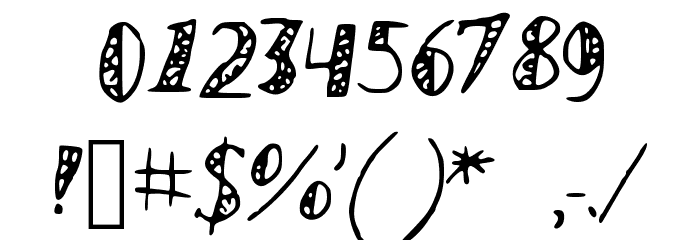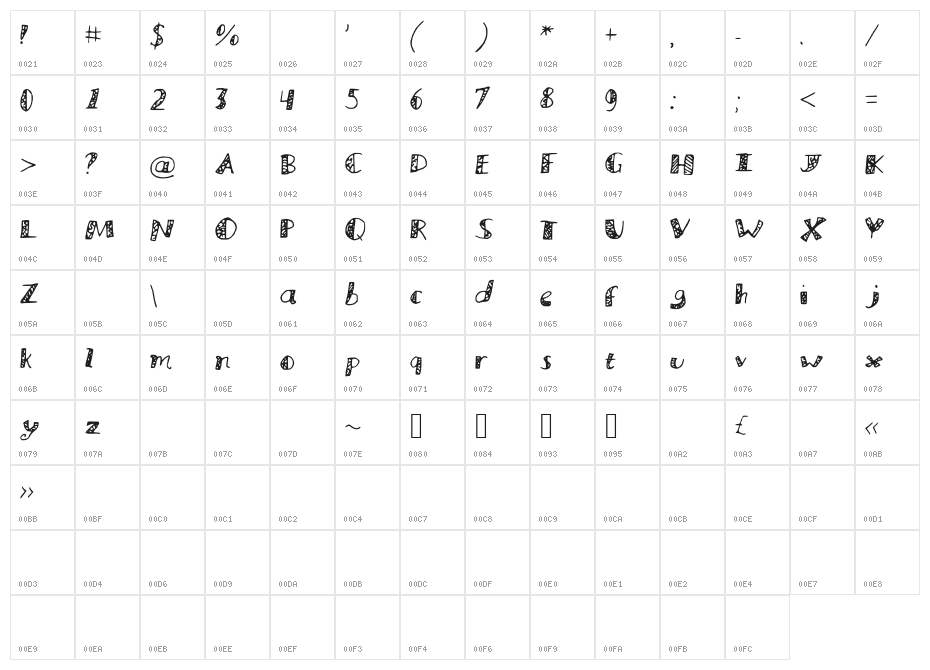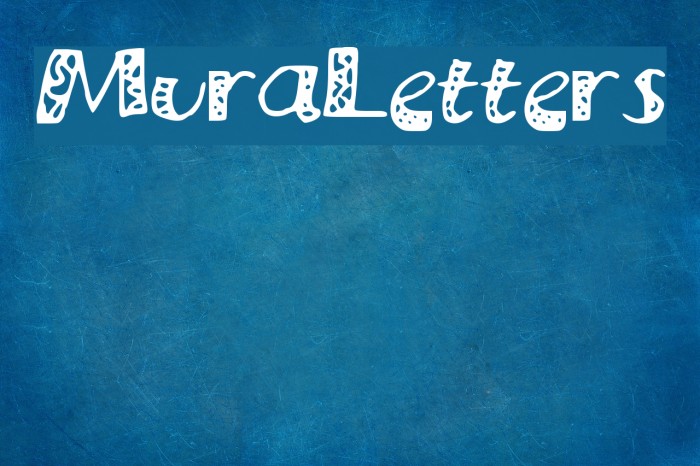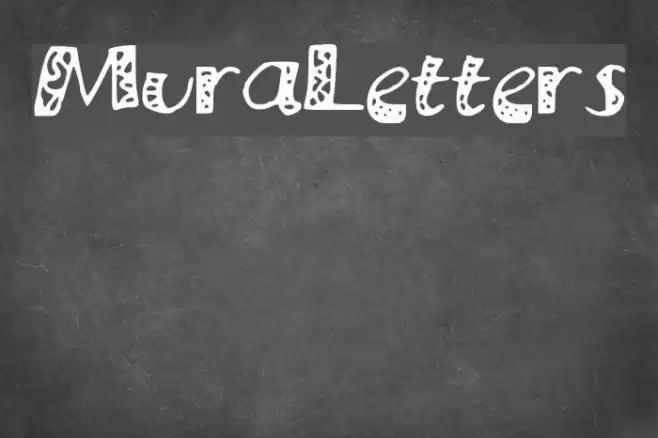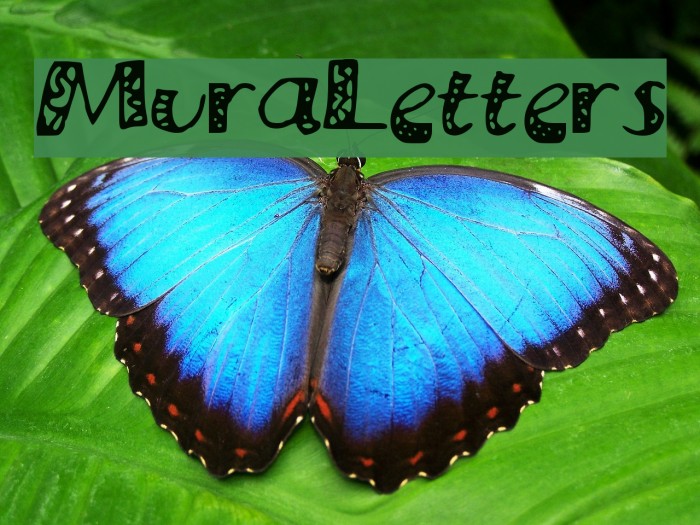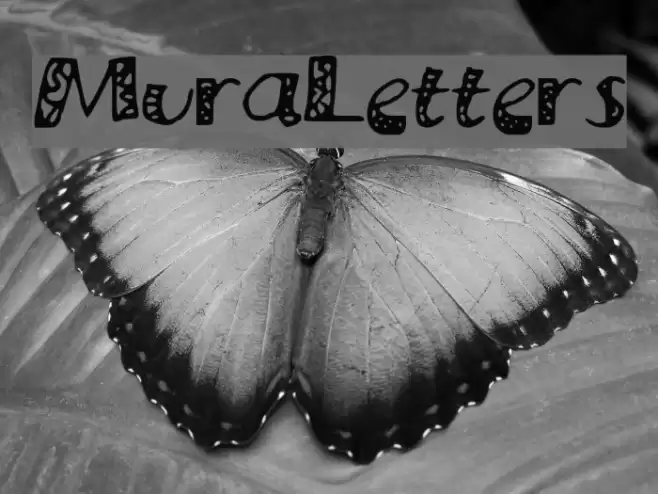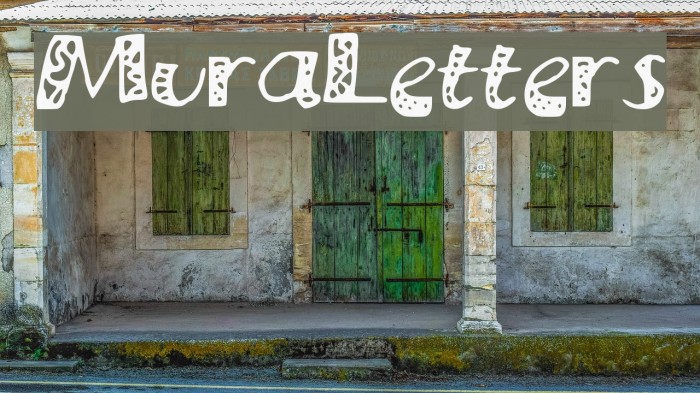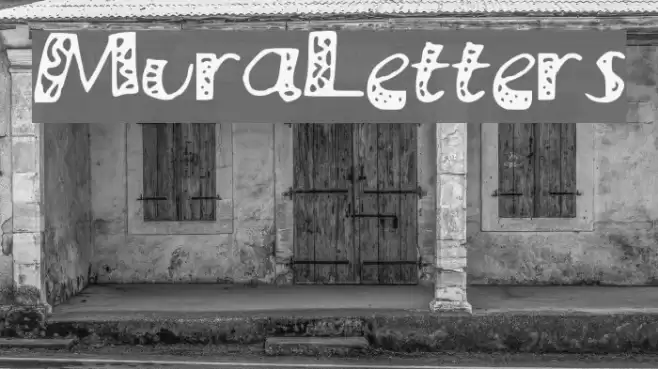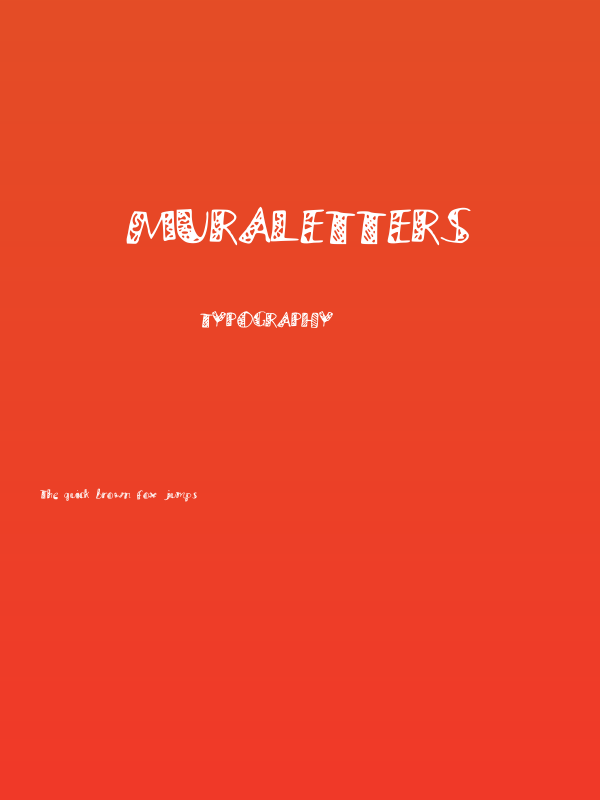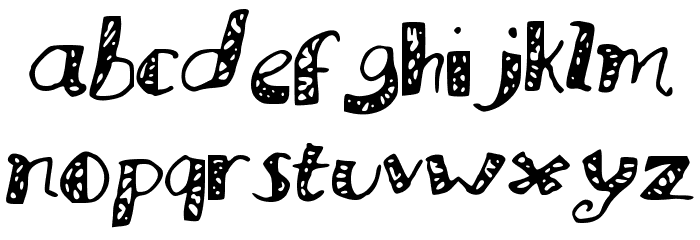
MuraLetters Font
MuraLetters Description
This playful and decorative font features a unique design with bold, whimsical letters that incorporate polka dot patterns within each character. The uppercase letters have a strong presence with their thick strokes and creative cutouts, while the lowercase letters maintain a more fluid and casual style. Numbers and special characters follow the same playful theme, making the font ideal for projects that require a fun and engaging look. The overall design is eye-catching and perfect for creative displays.
Proposed ProjectsIdeal for children's books, party invitations, playful branding, and creative posters.